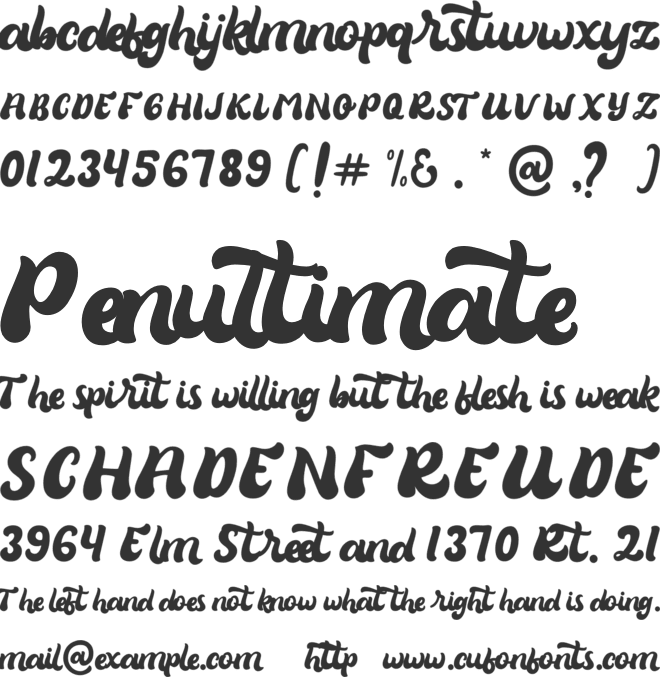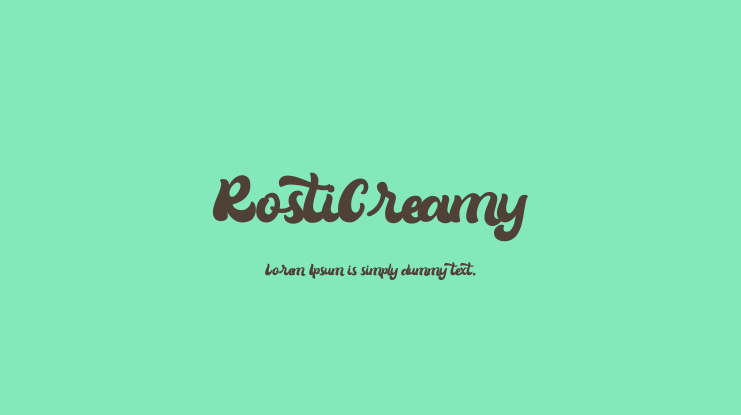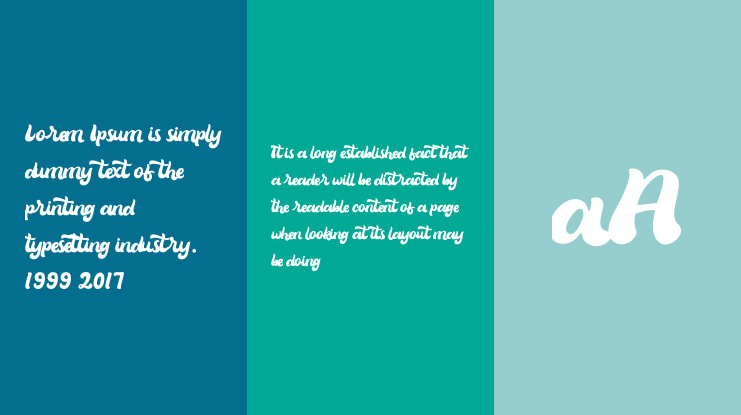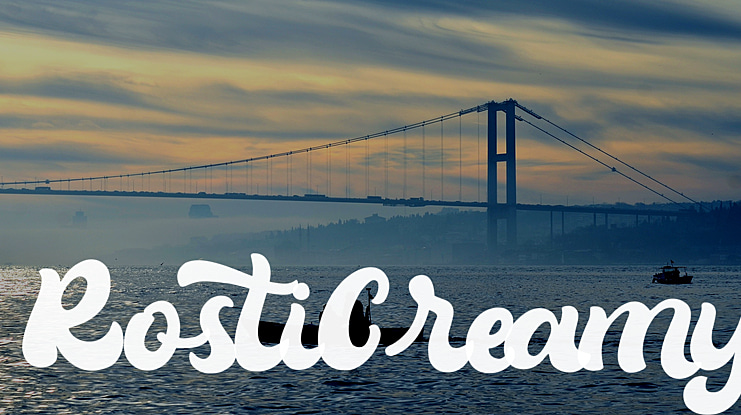
RostiCreamy Font
It's name Rösti Creamy
Rösti Creamy is a bold script, carefully handcrafted to become a true favorite.
Its  a handwritten style make this font looks elegant, natural, stylish .
Its casual charm makes it appear wonderfully down-to-earth, readable and, ultimately, incredibly versatile.
Rösti Creamy would perfect for logotype, food posters, handcrafted, craft, invitation, logos & branding , photography, advertisements, watermark, social media posts, product packaging, product designs, label, wedding designs, stationery, special events or anything that need handwriting taste.